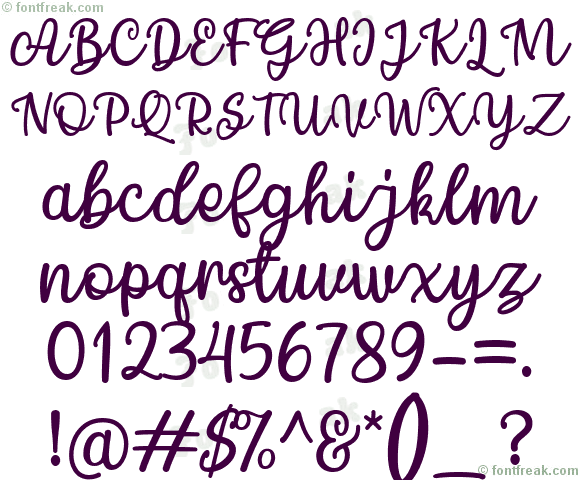
Chamomile
About Chamomile
Chamomile, designed by Situjuh Nazara, is a delightful handwritten font that radiates warmth and personality. This font features a unique blend of smooth, flowing lines and subtle curves, making it perfect for a variety of design projects. The stroke weight is consistently moderate, providing a balance between elegance and readability, while the slight contrast in thickness adds a touch of sophistication. The spacing is generous, which enhances legibility and gives the text a light, airy feel.
Chamomile is an excellent choice for several specific use cases. It shines in wedding invitations, where its charming aesthetic can capture the essence of romance. Additionally, it works wonderfully for restaurant menus, offering a friendly yet refined appearance that invites diners to explore the offerings. Graphic designers will find it ideal for branding materials, such as logos and packaging, where a personal touch is desired. Furthermore, it can enhance social media graphics and promotional materials, appealing to content creators looking to add a unique flair to their posts.
What sets Chamomile apart is its ability to convey a sense of warmth and approachability while maintaining elegance. This combination makes it a standout choice for those looking to create designs that resonate emotionally with their audience. If you're in search of a unique typeface that infuses character into your work, the Chamomile font free download is a fantastic option to consider.